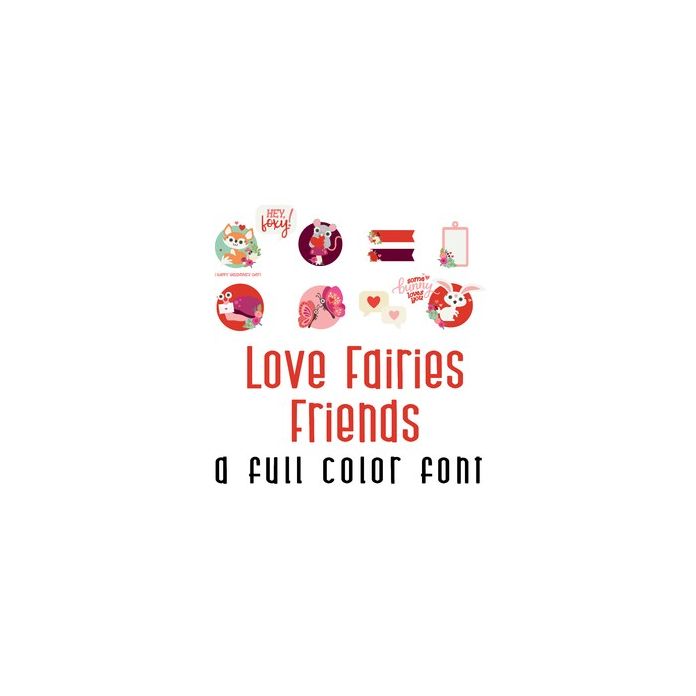
This adorable full-color doodlebat font features 26 beautiful forest animals ready for love. Perfect for cards, crafts, gifts, decor, scrapbook pages, planner stickers, and more!